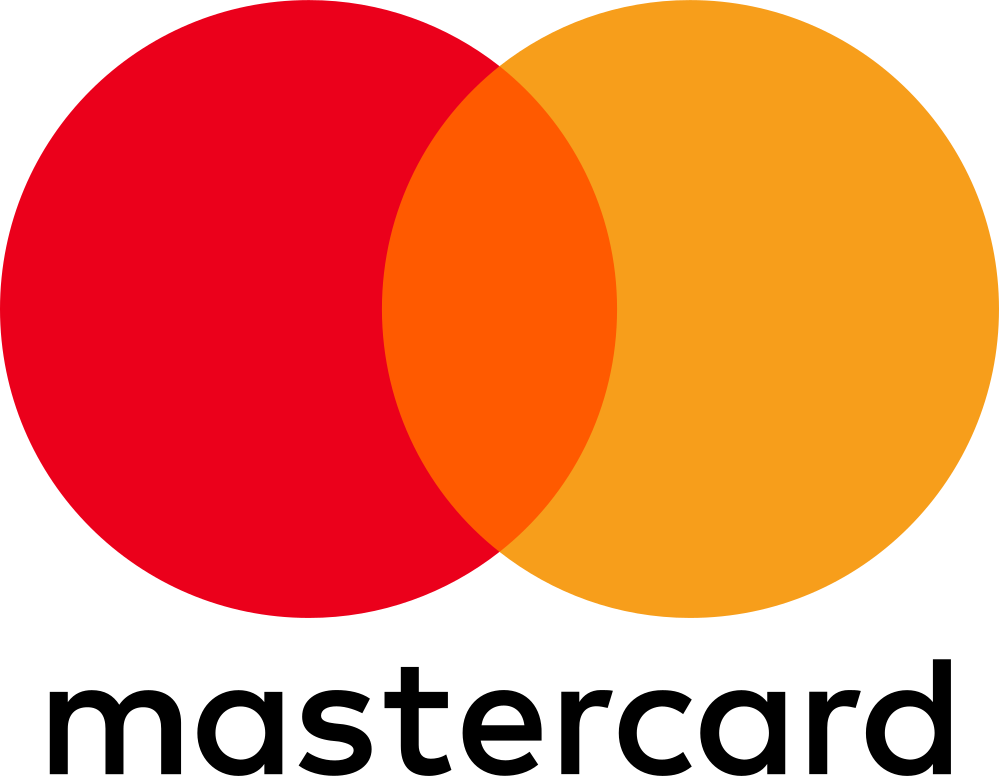
Understanding Color Contrast for Accessibility in Logo Design
Color contrast for accessibility in logo design is a vital part of inclusive logo design. By using clearly distinguishable colors, designers ensure that all users, including those with visual impairments, can recognize, read, and engage with logos effectively across different backgrounds, screen types, and environments.
Key takeaways
- Strong color contrast improves readability for users with low vision or color blindness.
- High-contrast logos stand out more and are easier to remember, which are perfect for logo design.
- Accessible design allows everyone to interact with a brand on equal terms, so designers must prioritize creating experiences that are usable by all.
- Logos with good contrast perform better across various media and backgrounds.
What is Color Contrast and Its Importance?
Color contrast in logo design involves the variation in lightness and color between the logo’s elements and the background they appear on. Strong contrast ensures that the logo remains visible, recognizable, and impactful across various platforms, including digital, print, and merchandise.
Understanding color contrast is key to creating accessible logos. It ensures that the text, icons, or graphic components of a logo stand out clearly. Good contrast helps maintain legibility and brand clarity, even when the logo is scaled down or placed on different backgrounds.
Since logos represent a brand to a wide audience, designers must consider users with visual impairments, such as color blindness or low vision. Accessible color contrast in logo design improves recognition and ensures the logo communicates effectively to everyone.
Color Contrast for Accessibility in Logo Design
To design logos that are both accessible and visually strong, designers should prioritize effective color contrast. A key step is testing color pairings to ensure they meet recommended contrast ratios. This helps make logos more inclusive and easier for everyone to recognize.
In logo design, it’s important to evaluate how the logo’s elements contrast with each other and with any background they may appear on. Logos that follow accessibility standards not only perform better visually but also extend their reach to audiences with visual impairments, such as color blindness or low vision.
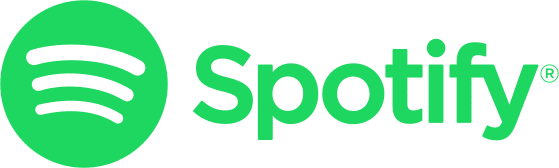
Spotify as an example of accessible color contrast logo design | Image Source: Wikipedia
The strong example of accessible color contrast in logo design is the Spotify logo. The bright green icon set against a black background creates a high-contrast combination that’s easy to identify on screens, billboards, or icons. This contrast ensures the logo stands out across light and dark modes, and remains recognizable.
Approaching Color Contrast in Logo Design
Here are some approaches to color contrast that you may try to make your brand outstanding in the crowded market.
1. Contrast with Color Hue Opposites
Contrasting colors, like complementary pairs (blue/orange, red/green, violet/yellow), help logos stand out and grab attention. While complements aren’t required, avoiding similar hues, like green and teal, ensures better contrast.
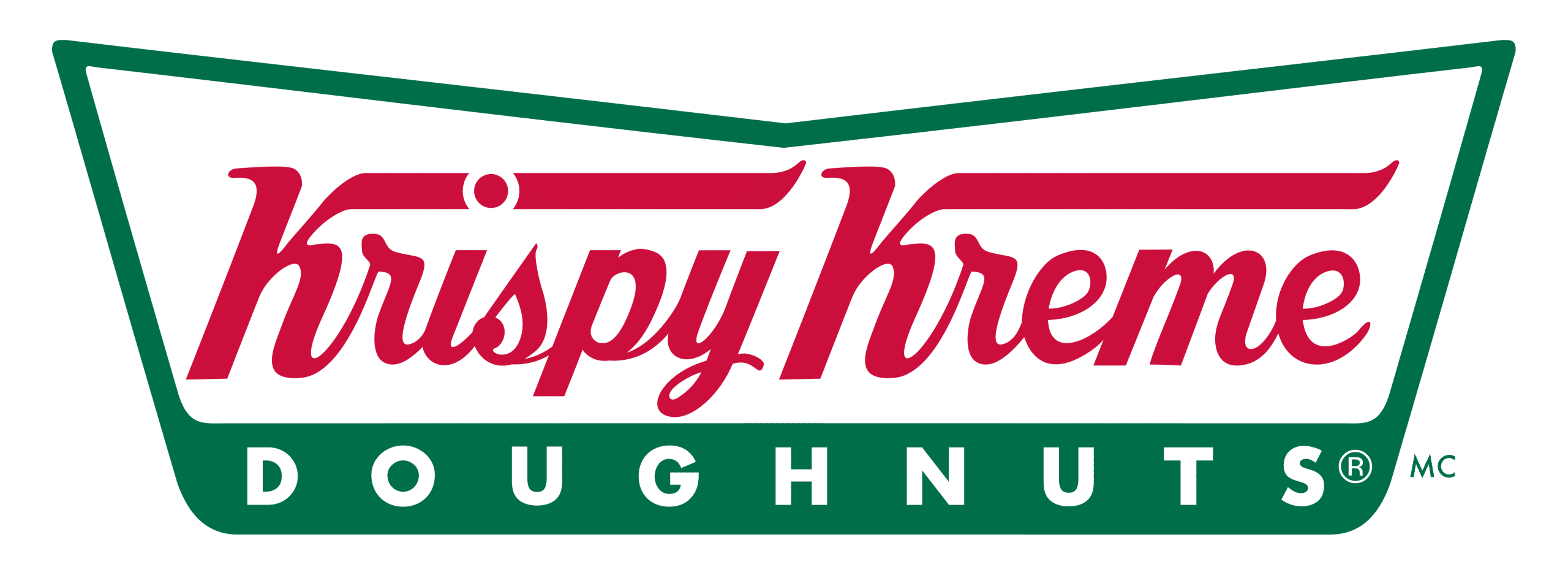
Krispy Kreme as an example for color hue opposites | Image Source: 1000Logos
For example, Krispy Kreme uses deep green and bright red against a white background to create a strong visual impact and enhance legibility. Using color psychology also helps brands express their identity and connect with their target audience more effectively.
2. Contrast with Dark and Light Colors
Using dark and light colors is one of the best color contrast for accessibility in logo design. It helps different elements stand out against the background. While black and white offer strong contrast, other color combos work too, just avoid similar tones.
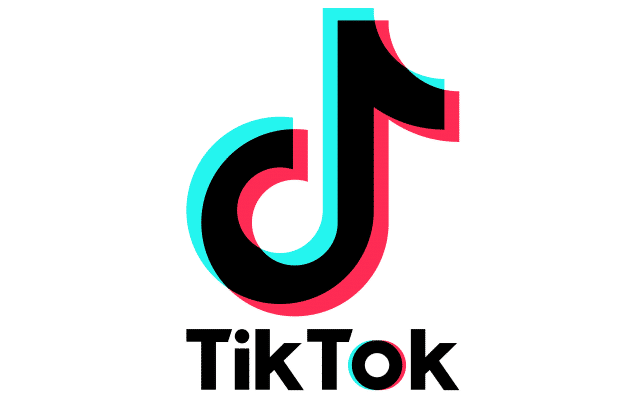
Tiktok as an example of contrast with dark and light color | Image Source: 1000Logo
A well-known example is the TikTok logo, as it uses a bold combination of bright cyan and red accents on a black background, with a white or dark grey note icon and text. This high contrast makes the logo instantly recognizable, even in small app icons or video intros, and ensures strong visibility across digital platforms.
3. Contrast with Typography Color
Using color contrast in typography enhances readability and makes logos more visually striking. It helps each part of the logo stand out clearly, improving recognition and accessibility. This technique also ensures the logo stays legible across different backgrounds and screen sizes.
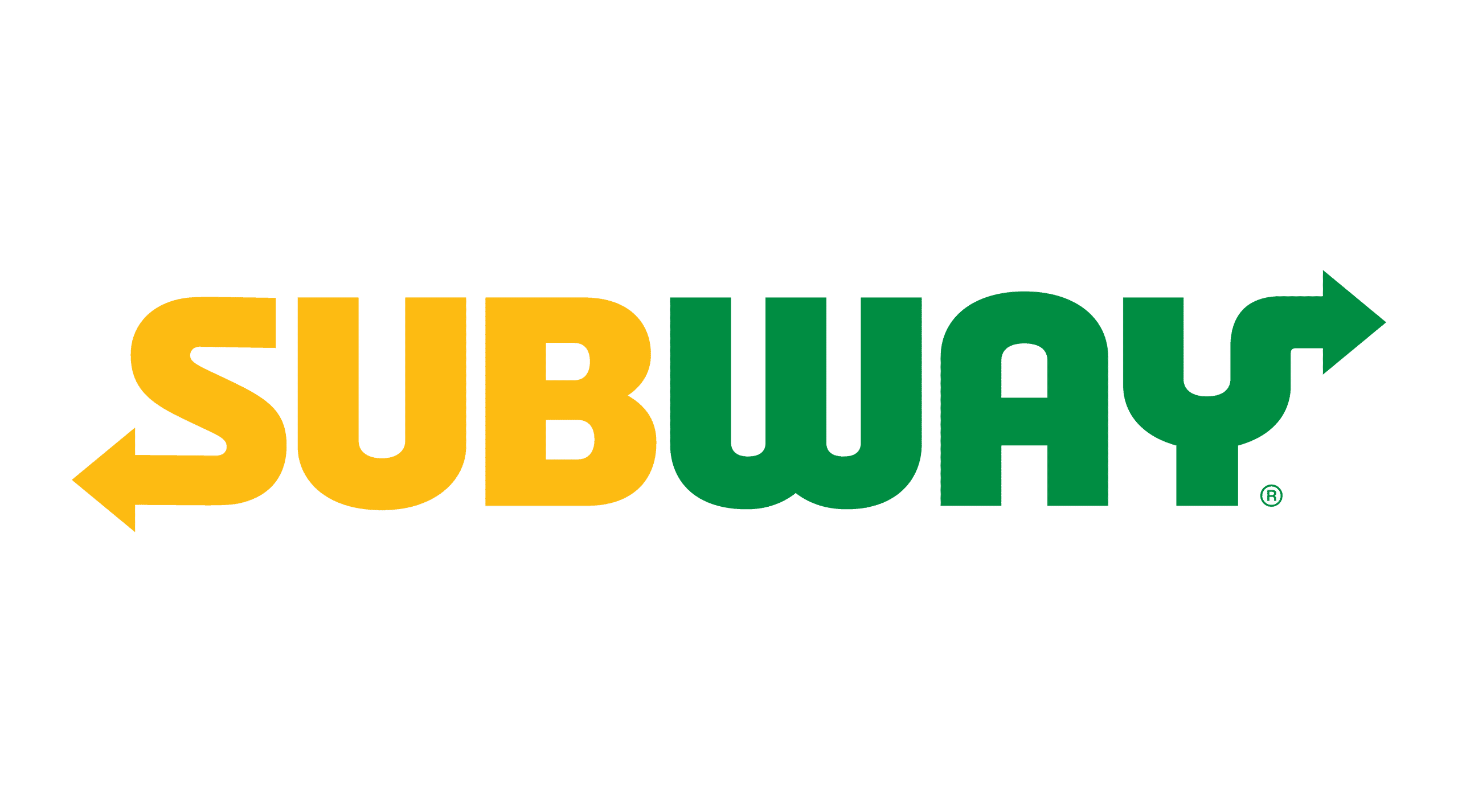
Subway logo as an example of contrast with typography color | Image Source: 1000Logos
For example, the Subway logo applies this approach by using yellow for “SUB” and green for “WAY.” The bright yellow catches the eye first, while the deeper green adds balance. This color pairing strengthens the brand’s fresh image and keeps the logo clear from any distance.
Now You Know Color Contrast for Accessibility in Logo Design
Color contrast is essential to make logo designs accessible to all users, including those with visual impairments. By ensuring sufficient contrast between elements, designers improve legibility, recognition, and overall user experience.Another essential element besides color is typography, as it shapes how a brand communicates with its audience. That’s where Lettersiro comes in, a trusted font resource offering a limited font collection that complements a wide range of brand styles and visual identities.